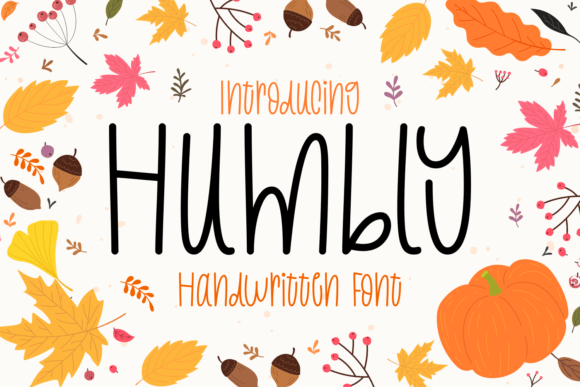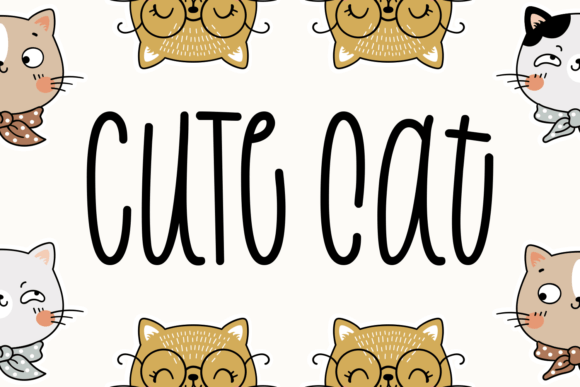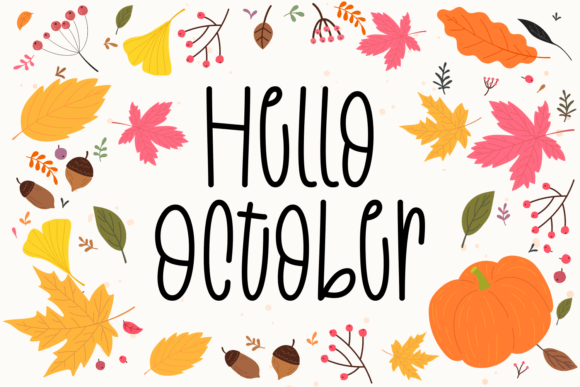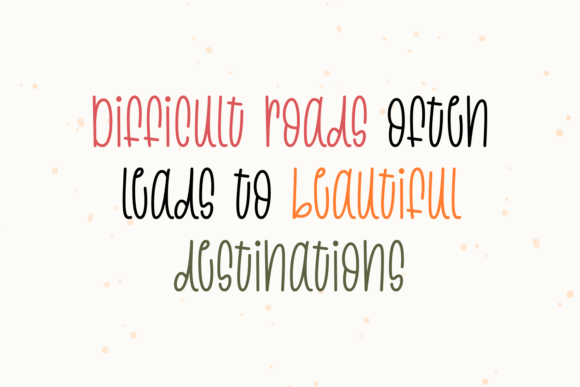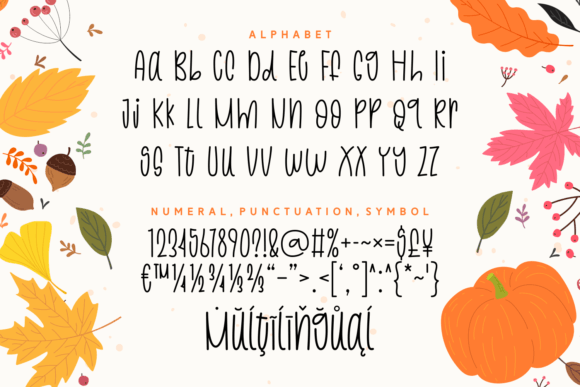
Humbly Font
About Humbly Font
Humbly is a clean handwritten typeface with thin lines and a whimsical touch that’s ideal for designs with a playful feel. You can use it for birthday cards, quotes, packaging, apparel, school projects, websites, and more.